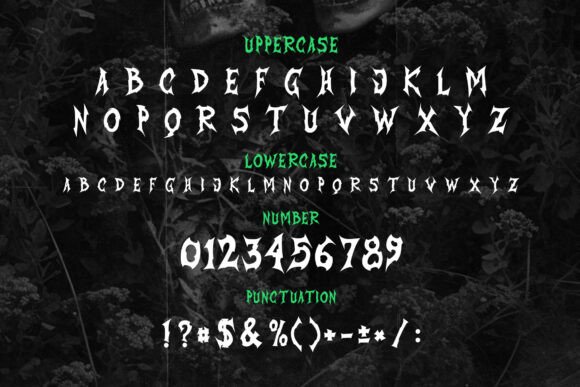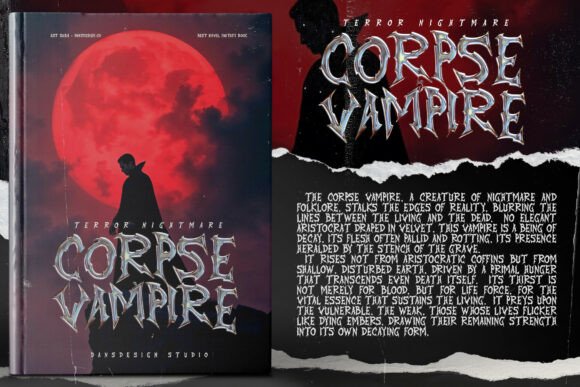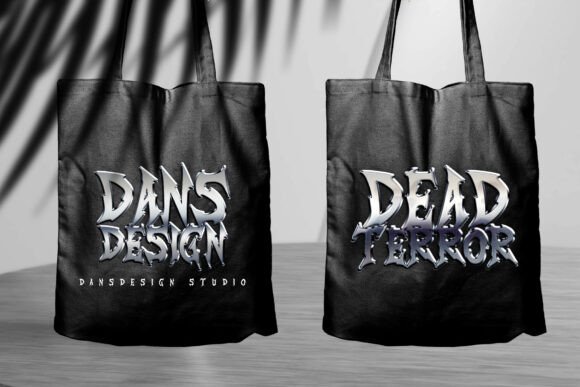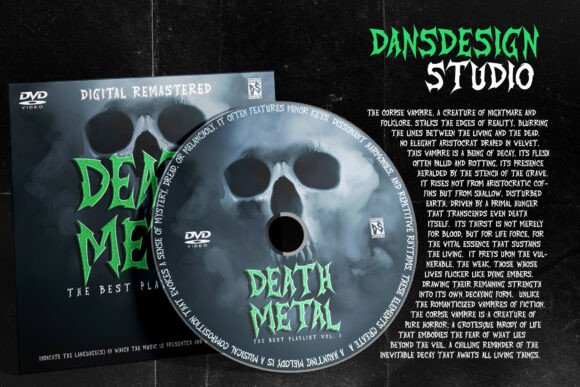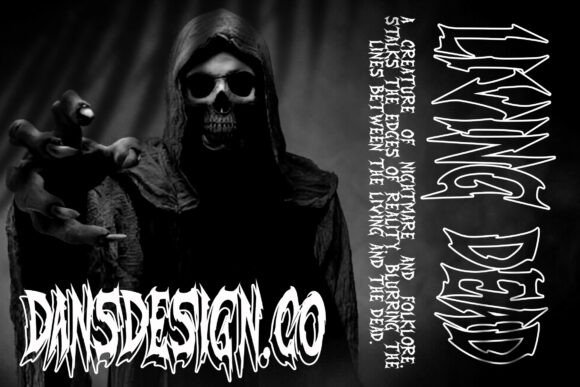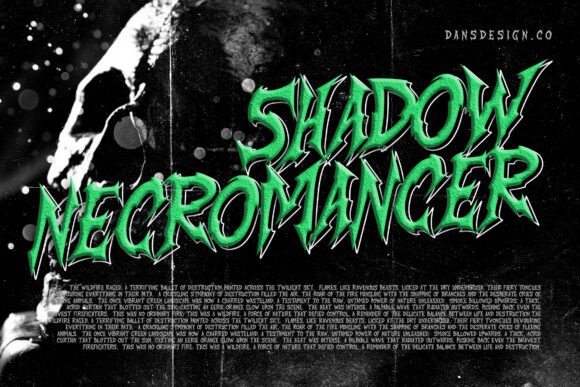
Introduction to Novocane Font
Novocane is a terrifyingly bold horror metal display font forged for darkness.
With razor-sharp edges, sinister curves, and high-contrast design, this typeface drips with raw fear and chaosโperfect for horror movie titles, slasher posters, Halloween merch, and extreme visual storytelling Inspired by heavy metal lettering and underground horror zines, Novocane brings a deadly attitude to every word.
Key Features of Novocane Font
Why Choose Novocane Font?